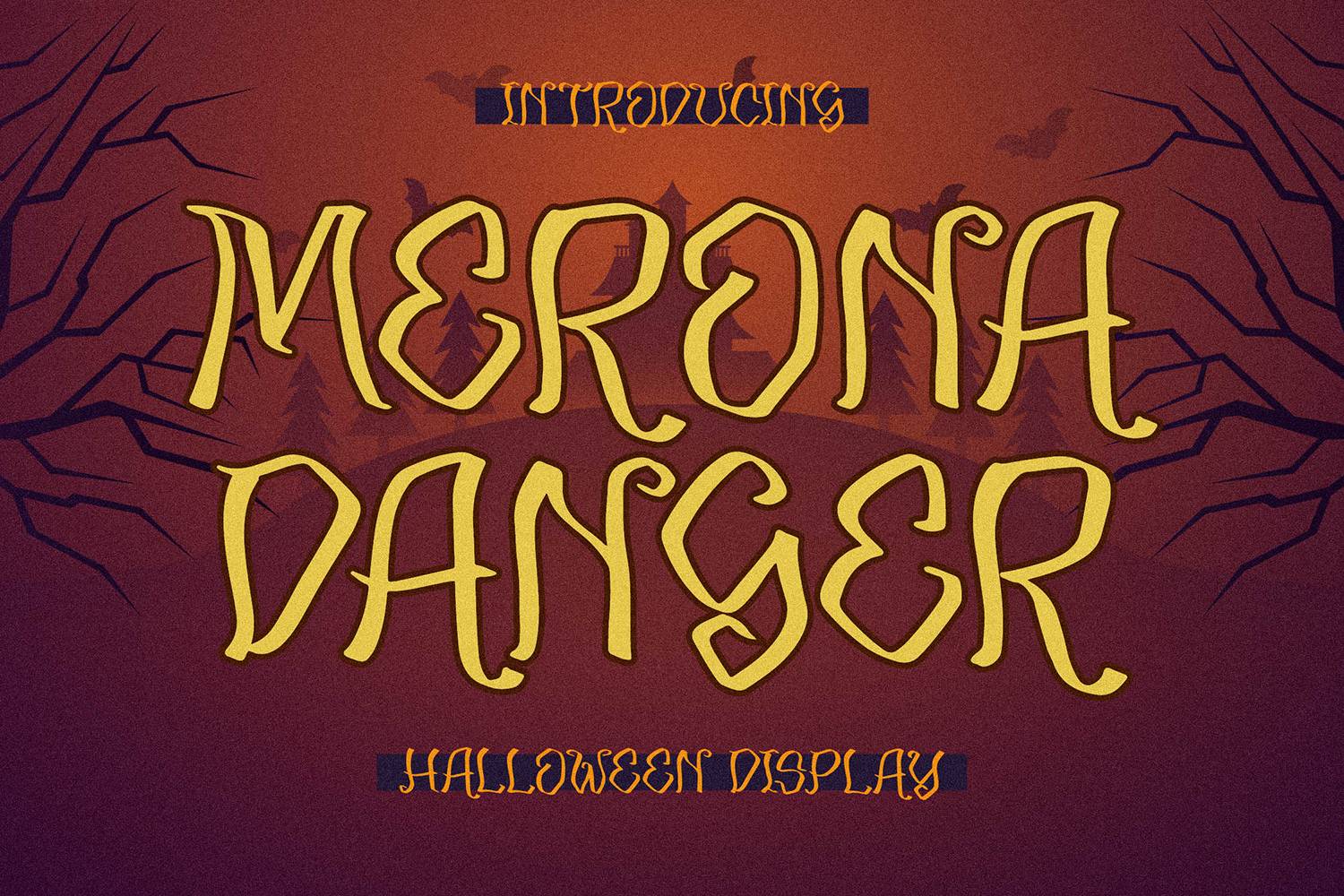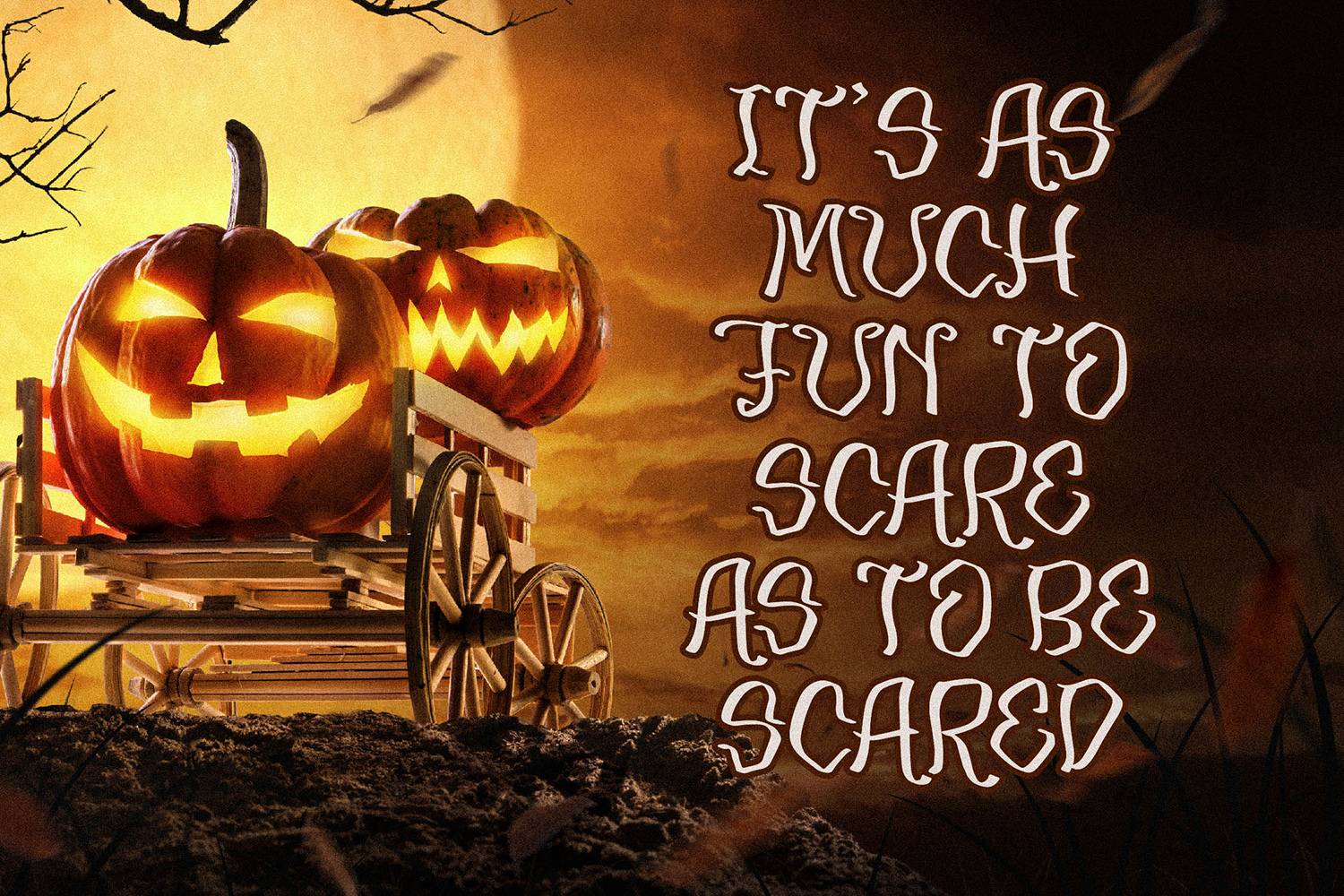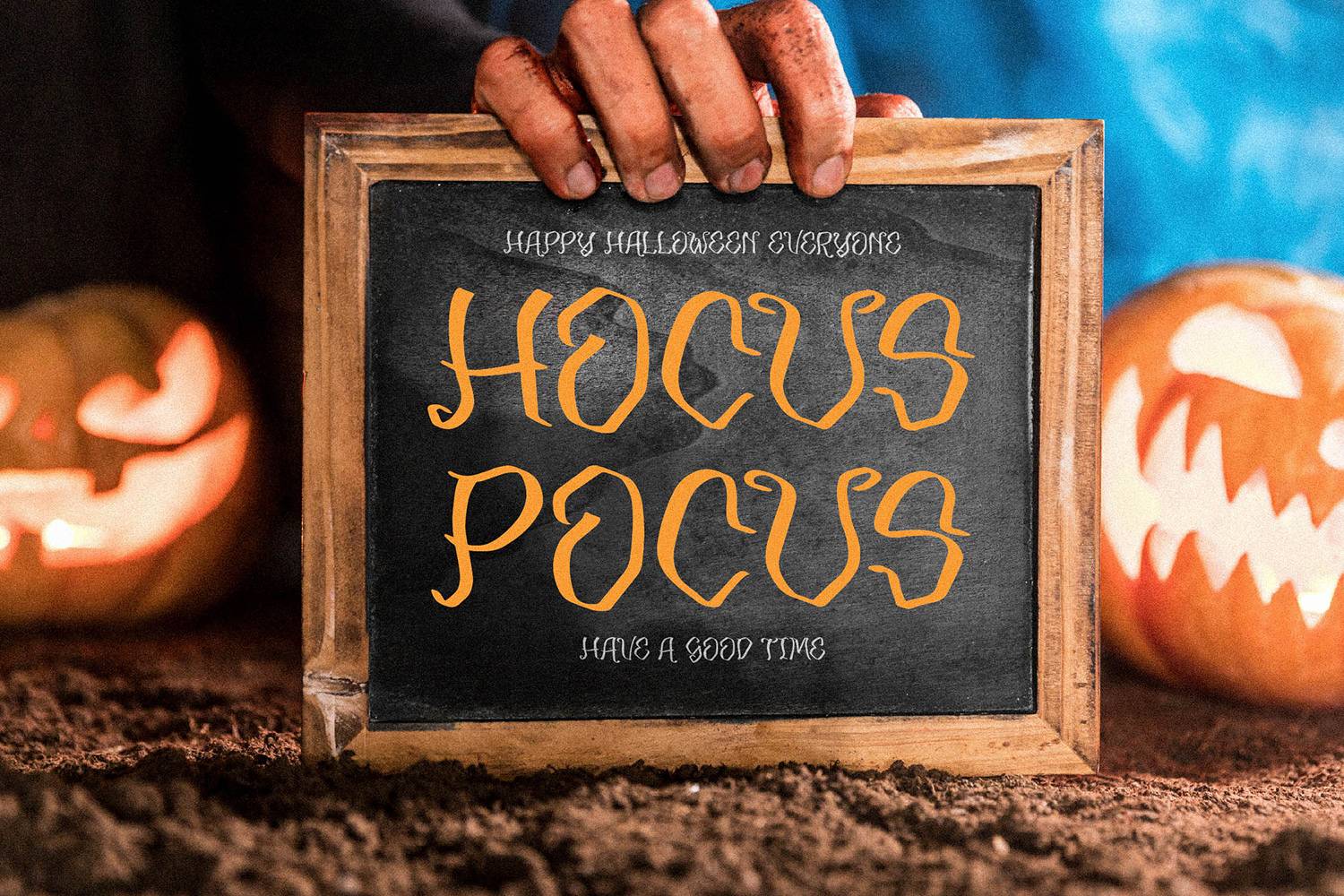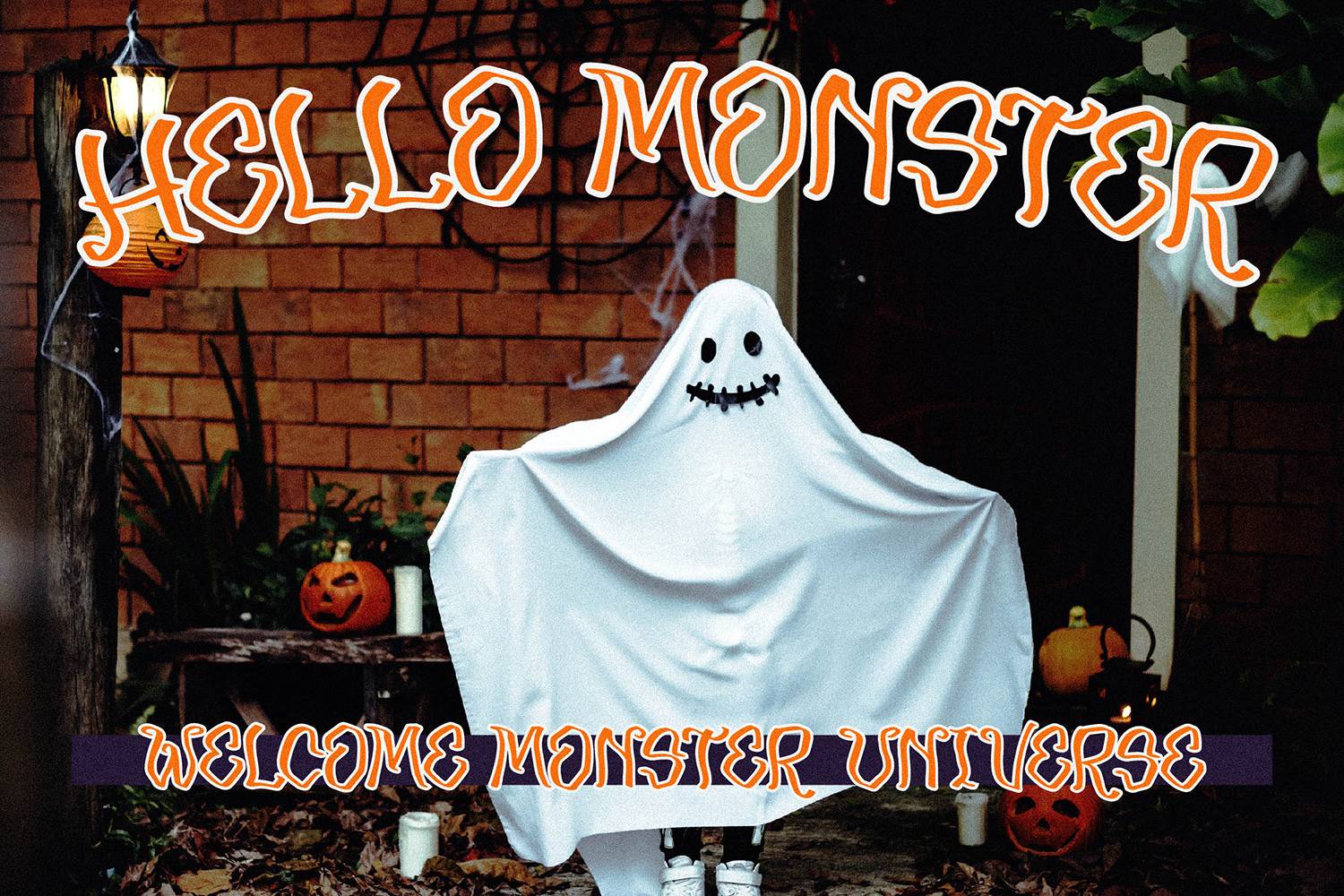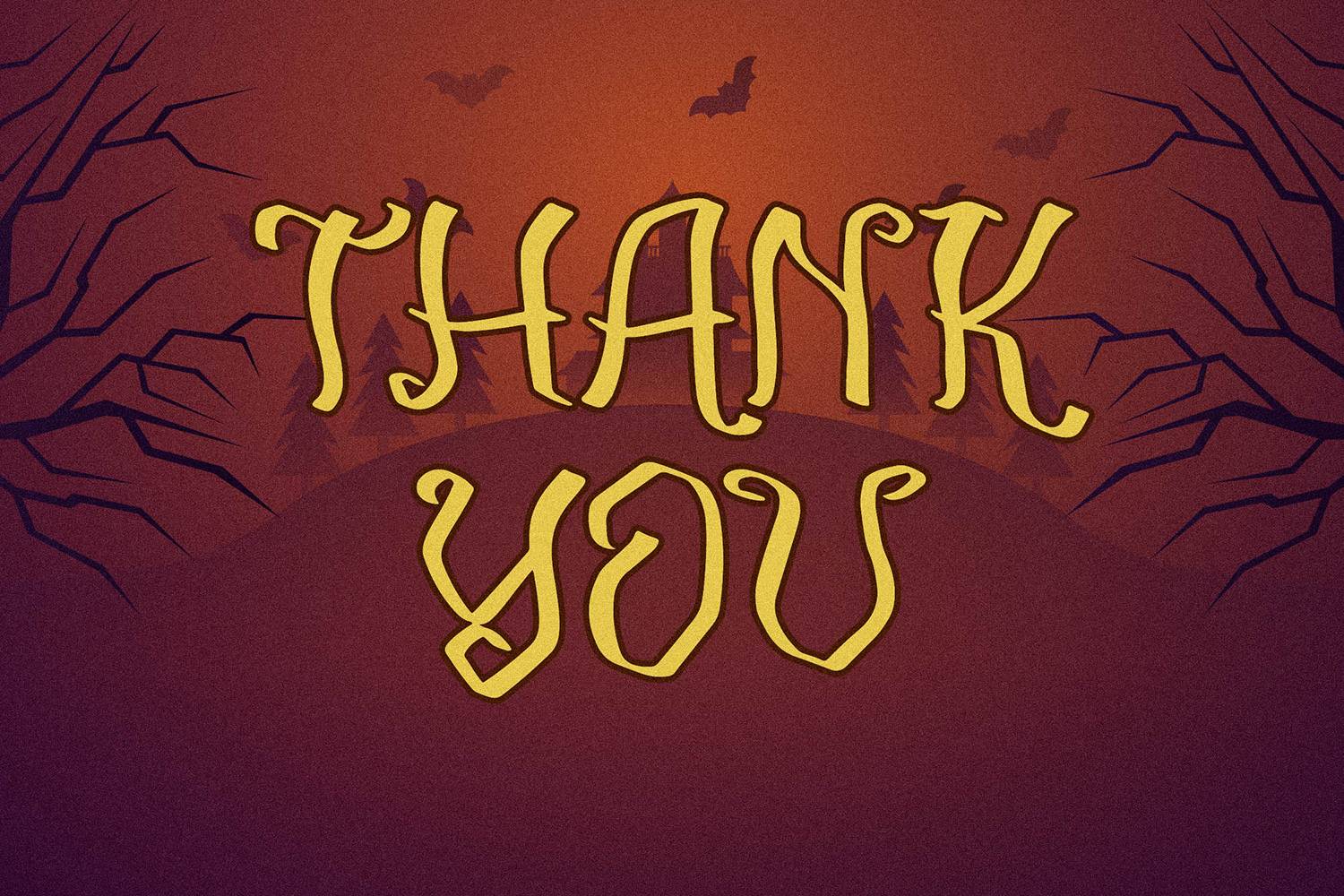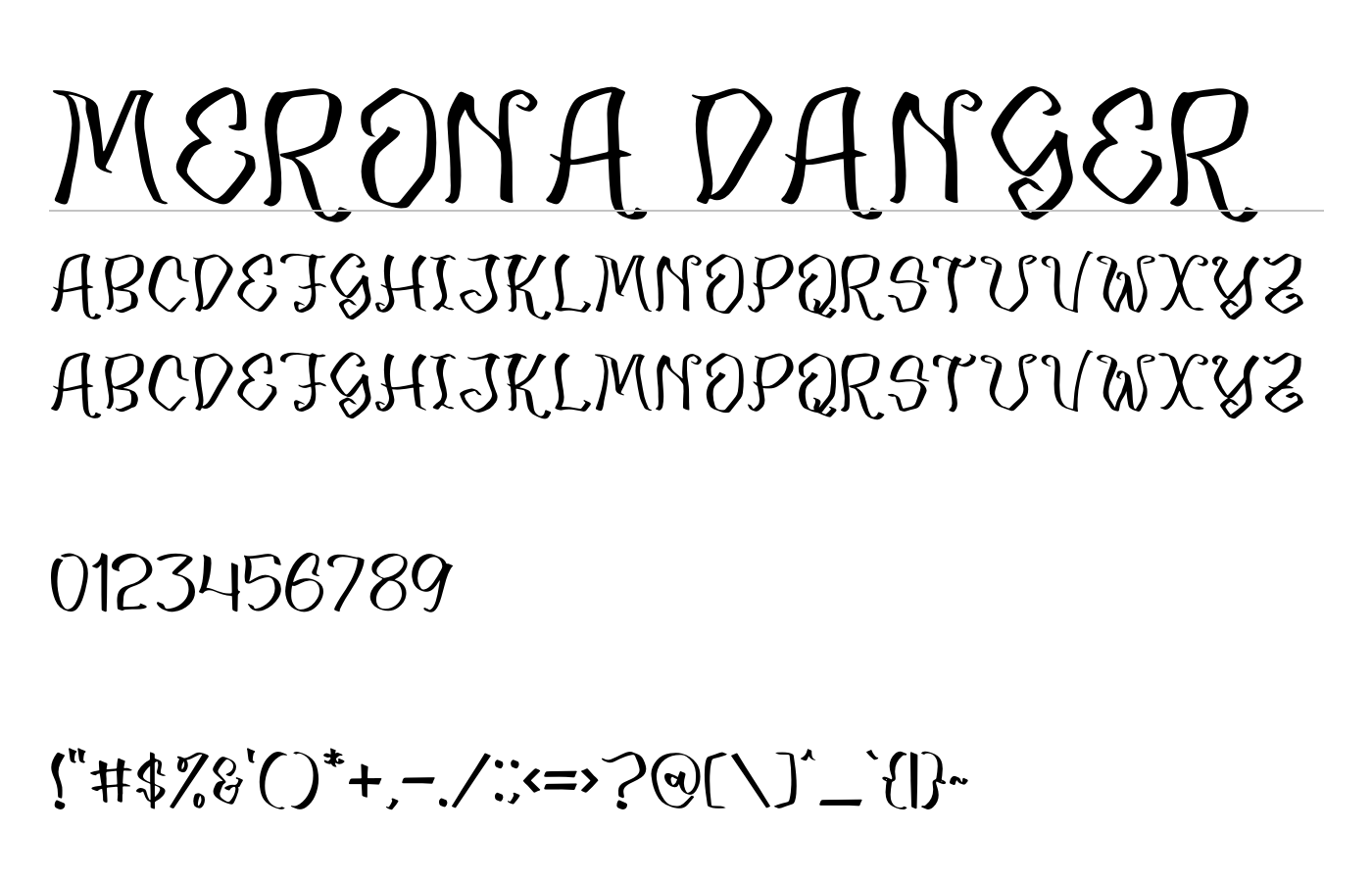
Merona Danger is a decorative serif font with an expressive, hand-drawn feel marked by its sharp, uneven strokes and quirky letterforms. It combines a medium weight with a narrow width and a slightly condensed x-height, creating an edgy and slightly eerie personality well suited for creative projects that need a bold, distinctive style. This font works best for headlines, posters, or branding that aims to capture attention with a unique, slightly gothic vibe.
Merona Danger Font
About Merona Danger Font